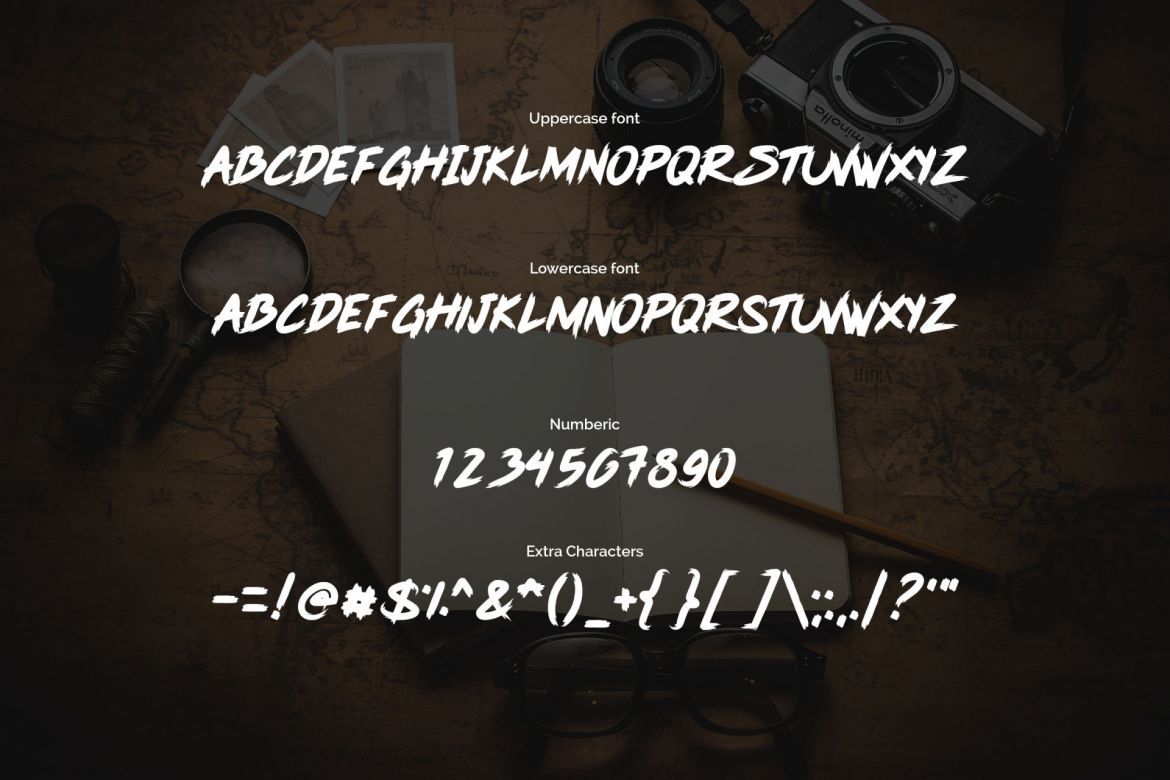
Pink Blue - Brush Display Font
Introducing – Pink Blue is a modern brush font, This elegant and beautiful font is stylish and versatile so you can use in a plethora of designs in both digital and print applications.